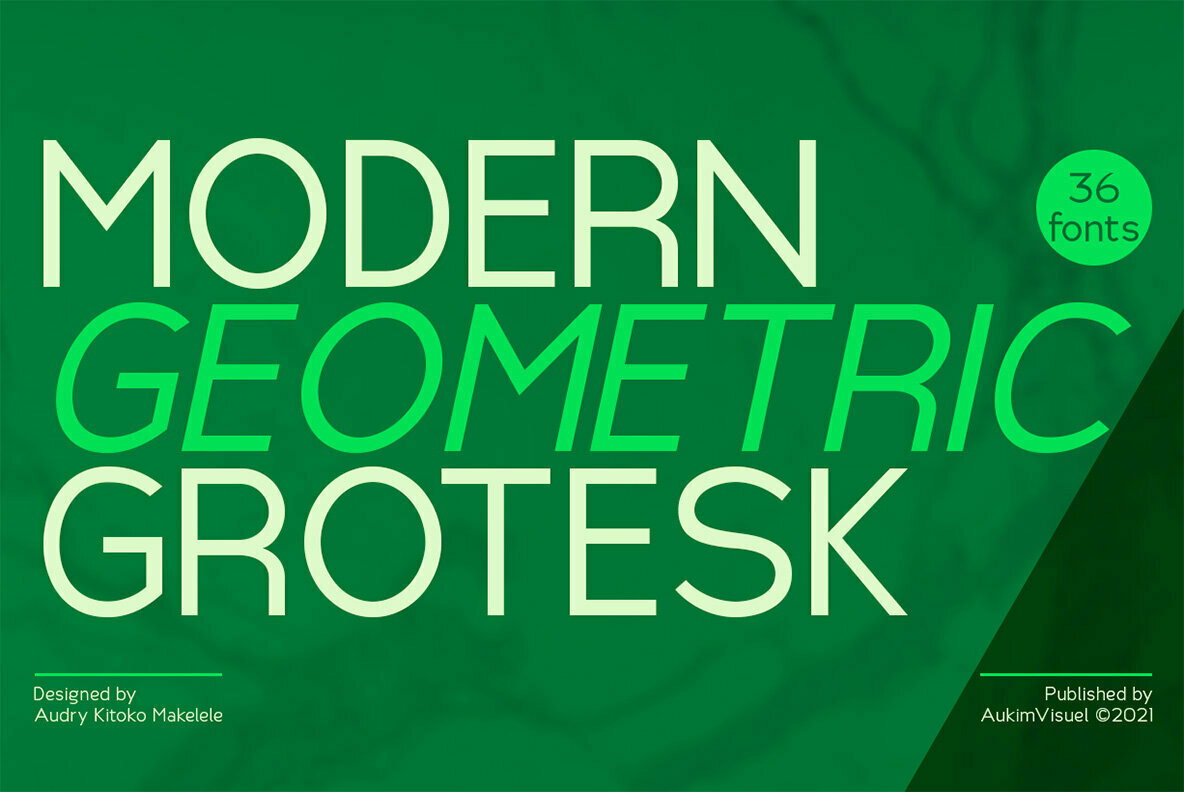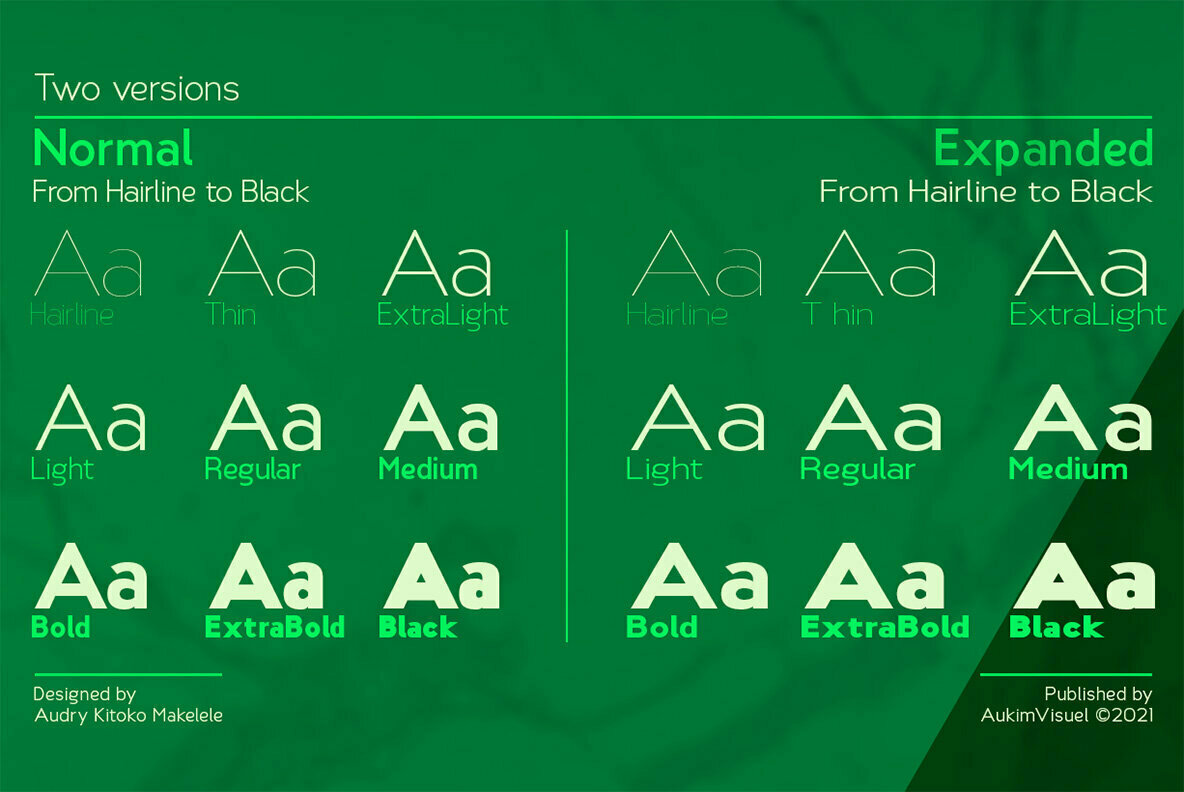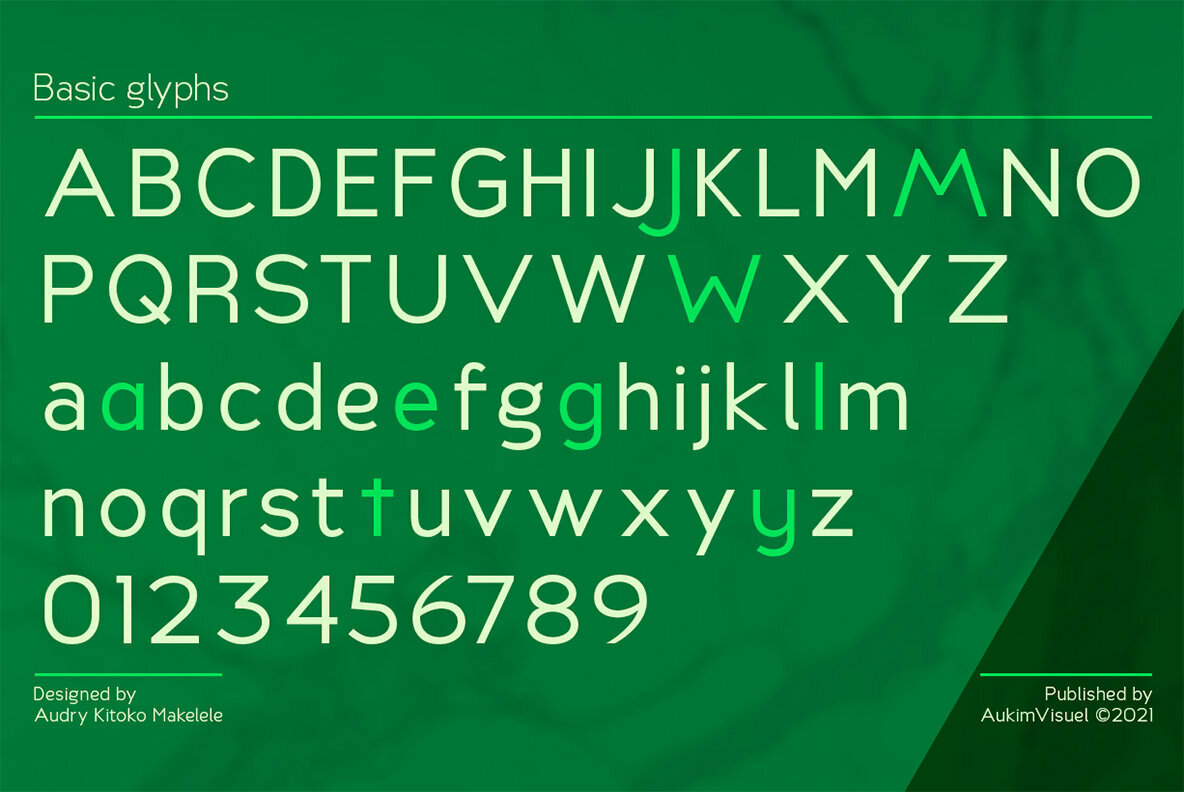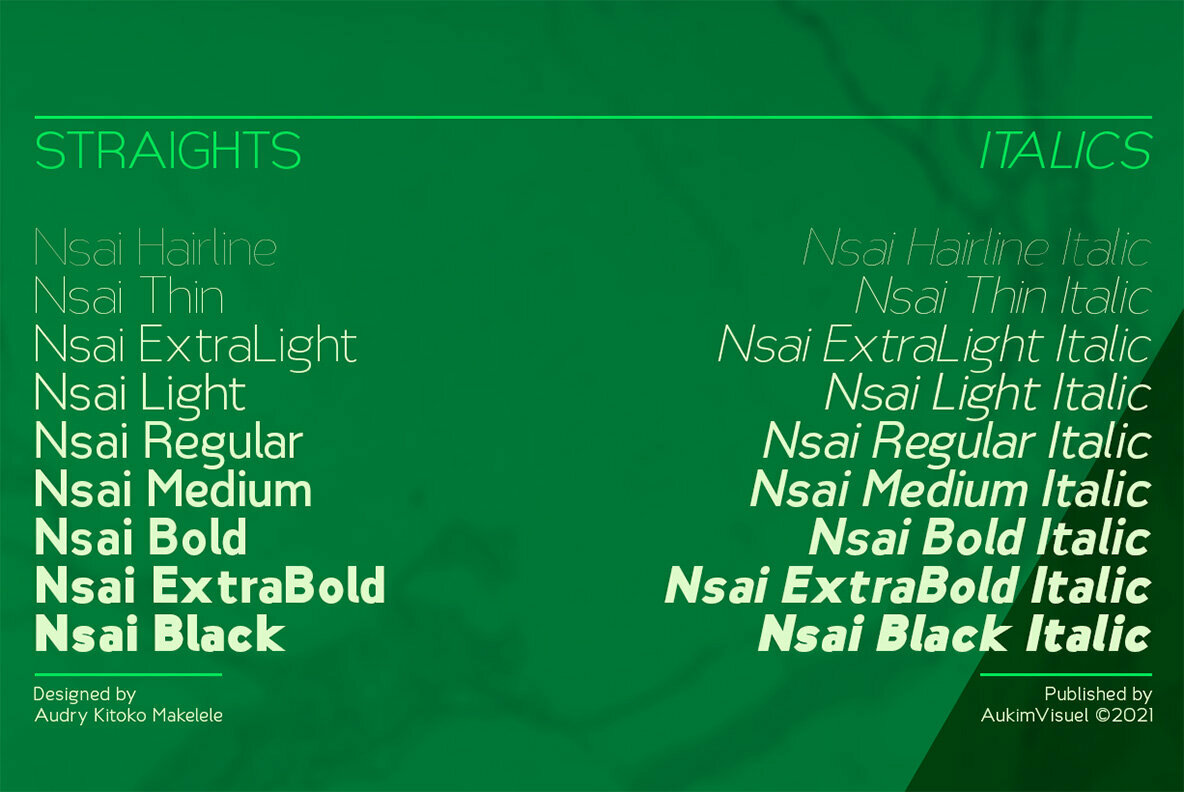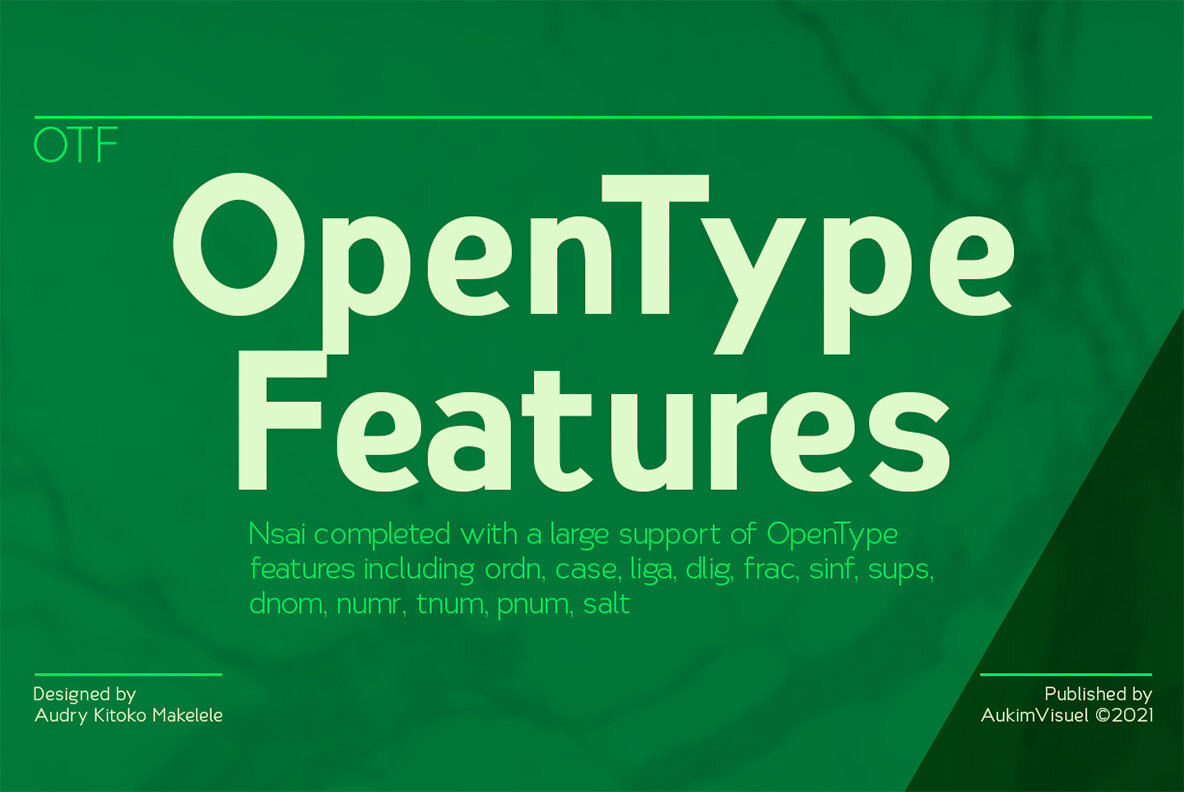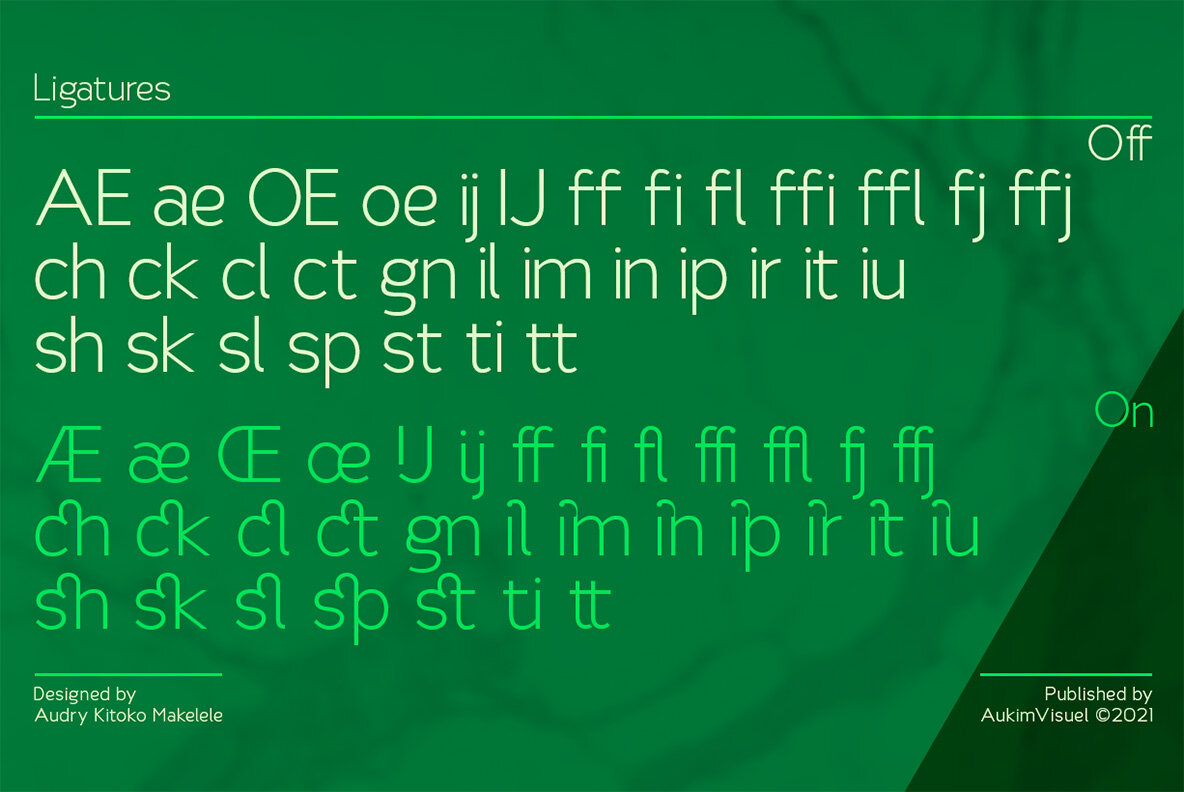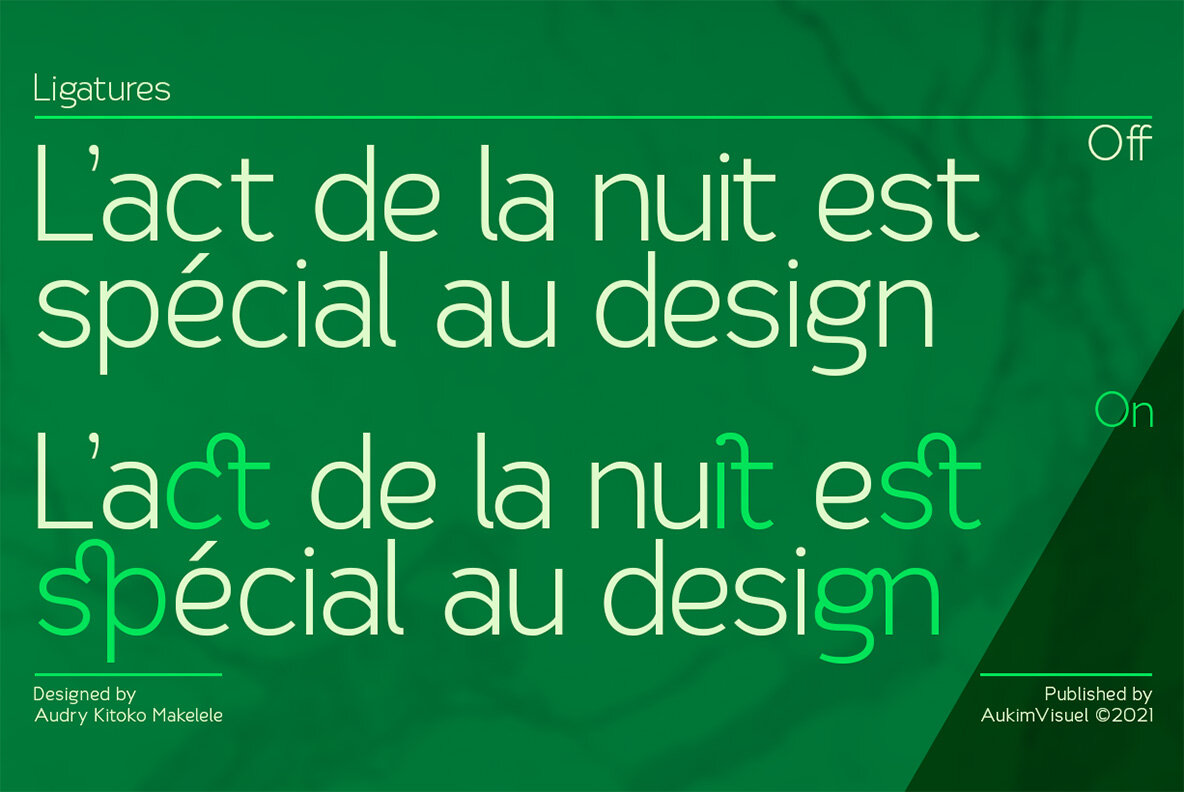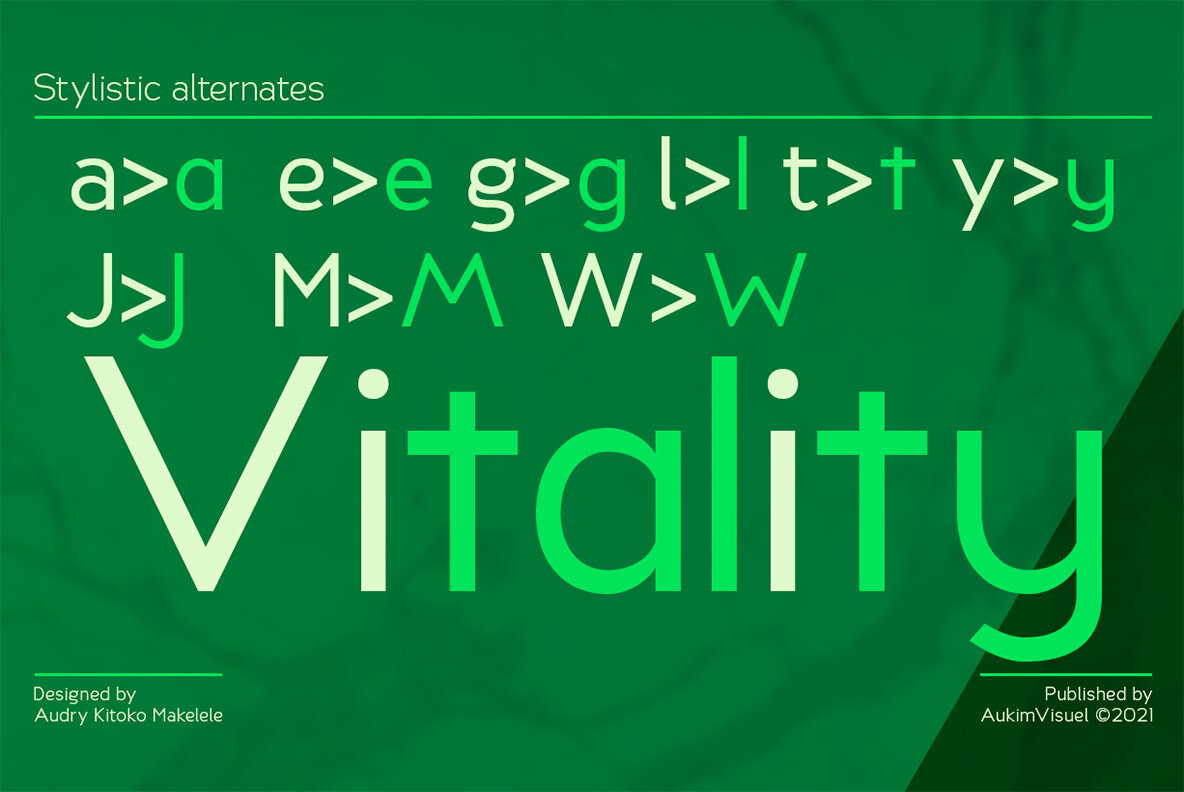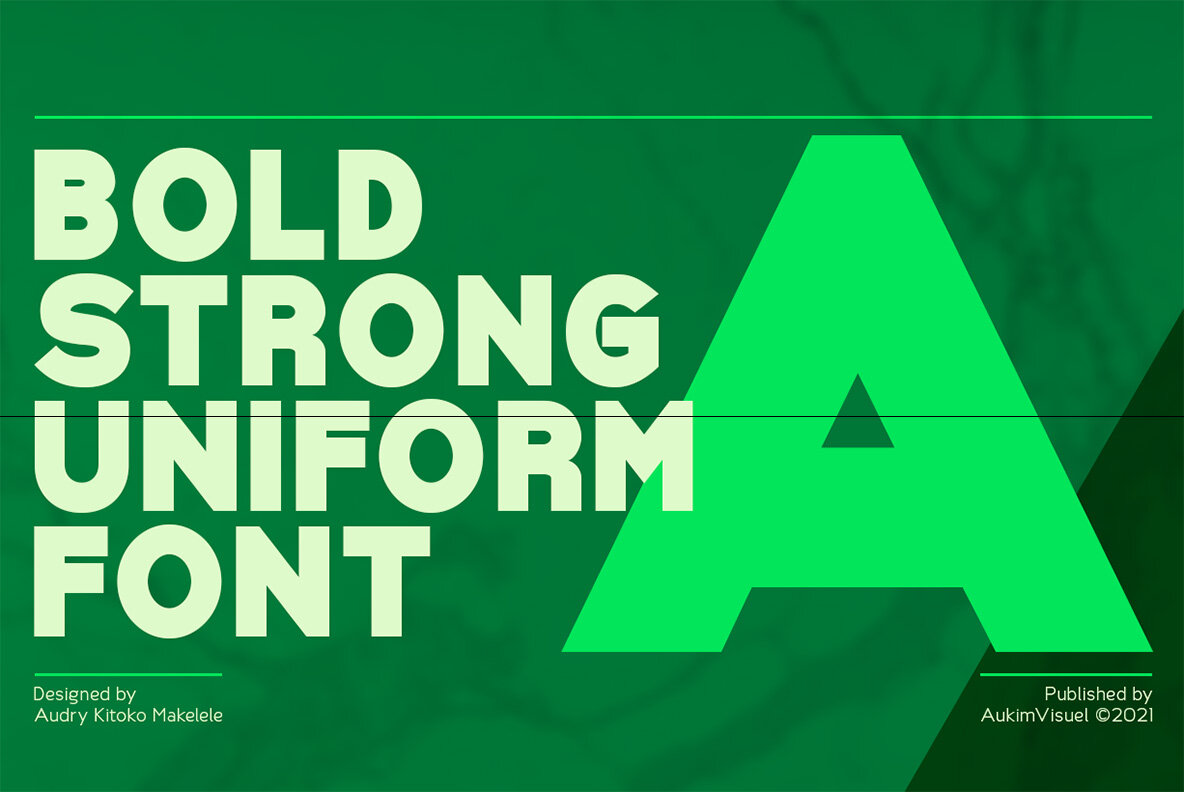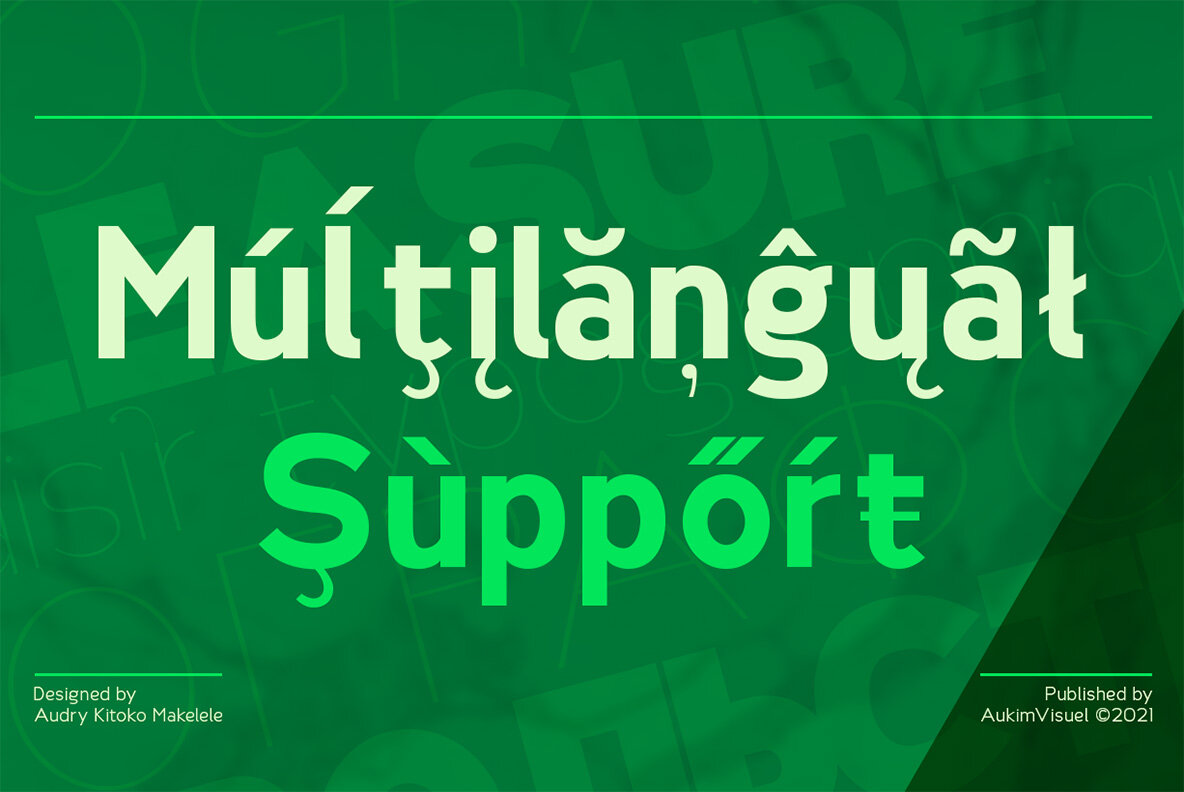
Nsai Font
Nsai is a modern sans serif font family with a geometric twist, created in 2021 by a Congolese type designer, Audry Kitoko Makelele. It is available in two versions (normal and extended) making a total of 36 fonts. There are 9 weights with their true italics. Over 600 glyphs per font provide a wide range of language support, from Latin to Cyrillic, as well as powerful Opentype features such as professional kerning, stylistic variations, very special ligatures, old-fashioned tabular figures, Fractions, denominators, exponents, unlimited indices, arrows and more to satisfy the most demanding professionals.
On the one hand, it features rounded curves with very open terminals that make this font family elegant, user-friendly and contemporary and on the other hand very useful for writing titles on any medium. Perfectly suited for graphic design and any display use. It could easily work for web, signage, corporate as well as editorial design. It’s a wonderful, bold and elegant font.